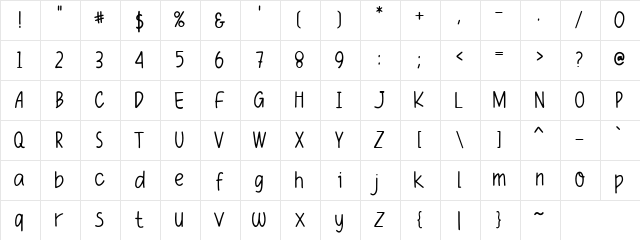
Funiko Regular Free Font
Funiko Regular
Foundry: Polah
Designer: Polah
Design Context for Funiko
Funiko has an approachable, lighthearted character - its loose, expressive forms are well-suited to children's content, casual branding, and fun-first design.
Font Pairing: Pairs well with a rounded or humanist sans for body copy, maintaining the friendly tone without relying on Funiko to carry extended reading.
Pro Tip: Use Funiko at larger display sizes where its expressive character can land. Pair with a clean, simple sans for body copy to maintain readability.